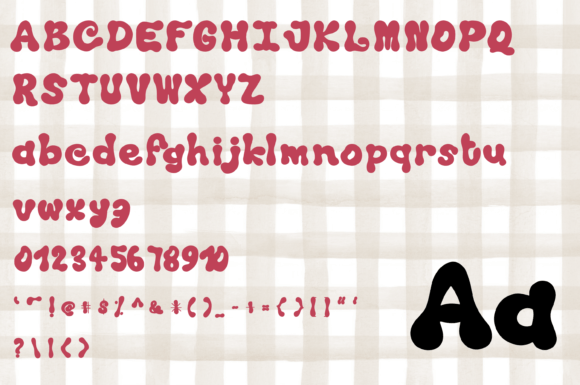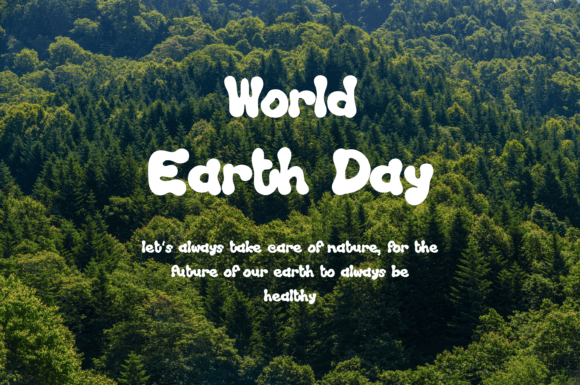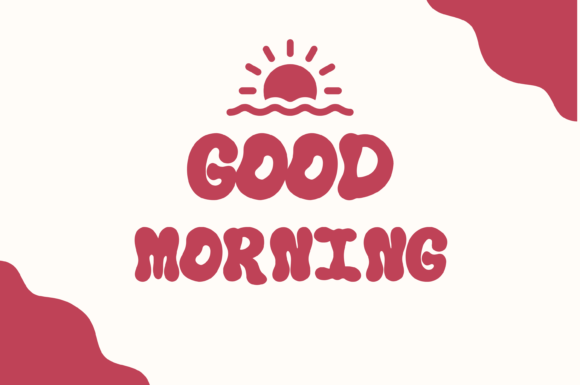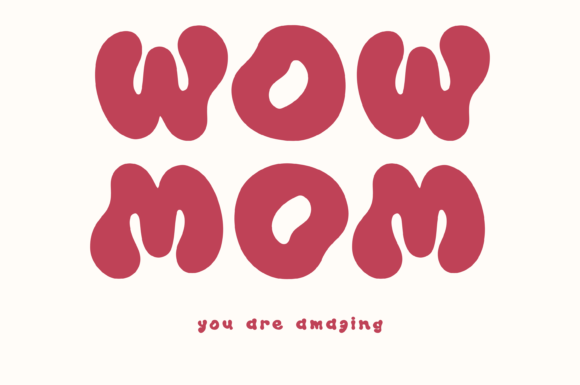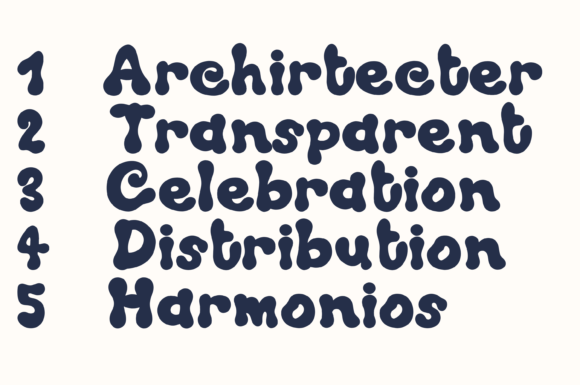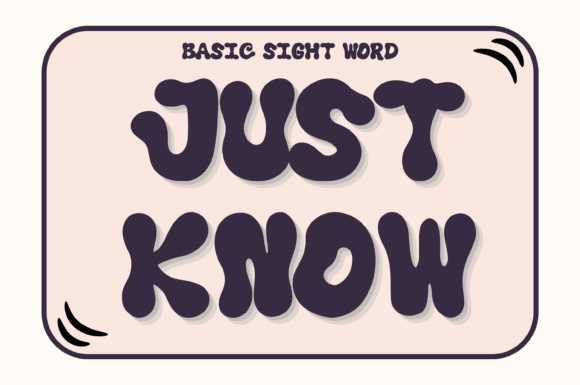
Introducing Beach Days Font: Elevate Your Designs with a Whimsical and Clean Handwritten Style
Are you tired of using the same old fonts in your designs? Do you want to add a touch of personality and whimsy to your projects? Look no further than Beach Days Font, a beautiful and versatile handwritten font that’s perfect for designers and crafters alike. In this article, we’ll dive into the features and benefits of Beach Days Font, and explore how it can elevate your designs and make them stand out.
What is Beach Days Font?
Beach Days Font is a whimsical and clean handwritten font that’s designed to add a touch of playfulness and charm to your designs. With its smooth and flowing lines, this font is perfect for creating beautiful and eye-catching text that will capture the attention of your audience. Whether you’re working on a branding project, a craft project, or simply want to add some personality to your digital or print materials, Beach Days Font is the perfect choice.
Key Features of Beach Days Font
So, what makes Beach Days Font so special? Here are just a few of its key features:
- Whimsical and clean design: Beach Days Font has a unique and playful design that’s both clean and elegant. Its smooth lines and curves make it easy to read and perfect for a wide range of applications.
- Versatile: This font is incredibly versatile and can be used in a wide range of projects, from branding and advertising to crafting and DIY projects.
- Handwritten style: Beach Days Font has a beautiful handwritten style that’s perfect for adding a personal touch to your designs.
How to Use Beach Days Font
Beach Days Font is incredibly easy to use and can be applied to a wide range of projects. Here are just a few ideas to get you started:
- Branding and advertising: Use Beach Days Font to create eye-catching logos, business cards, and advertising materials that will help your brand stand out.
- Crafting and DIY projects: Add a personal touch to your crafting and DIY projects with Beach Days Font. Use it to create beautiful labels, signs, and other decorative elements.
- Digital and print materials: Use Beach Days Font to add some personality to your digital and print materials, such as brochures, flyers, and social media graphics.
Benefits of Using Beach Days Font
So, why should you choose Beach Days Font for your next project? Here are just a few benefits of using this amazing font:
- Adds personality: Beach Days Font adds a touch of personality and whimsy to your designs, making them more engaging and eye-catching.
- Increases versatility: This font is incredibly versatile and can be used in a wide range of projects, making it a great addition to your font library.
- Easy to read: Beach Days Font is easy to read, making it perfect for body text and other applications where readability is key.
- Unique and creative: Beach Days Font has a unique and creative design that’s sure to make your designs stand out from the crowd.
In conclusion, Beach Days Font is a beautiful and versatile handwritten font that’s perfect for designers and crafters alike. With its whimsical and clean design, this font is sure to add a touch of personality and charm to your designs. Whether you’re working on a branding project, a craft project, or simply want to add some personality to your digital or print materials, Beach Days Font is the perfect choice. So why wait? Download Beach Days Font today and start creating amazing designs that will make your audience take notice!
Beach Days Style is a whimsical and clean handwritten font. It can easily be matched to an incredibly large set of projects, so add it to your creative ideas and notice how it makes them stand out!